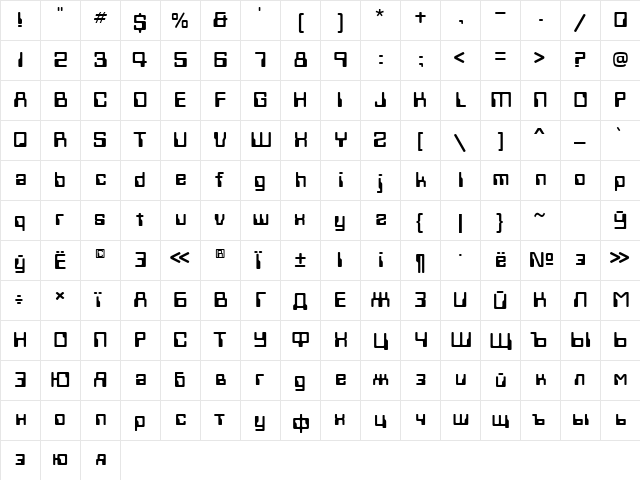
Techno28 Normal
Design Context for Techno28 Typeface
Techno28 has a distinctly futuristic character, with geometric precision and clean angles that feel at home in technology, gaming, and sci-fi contexts.